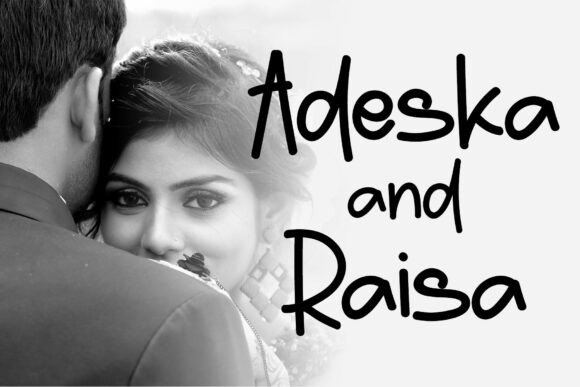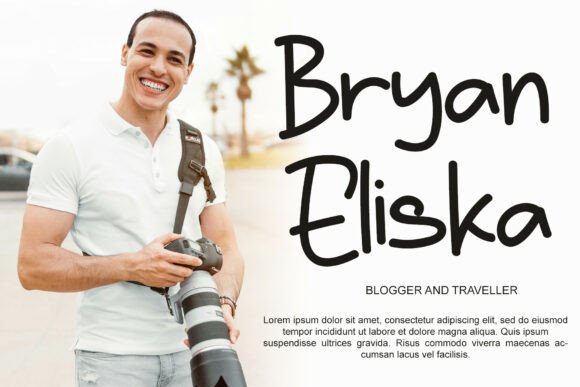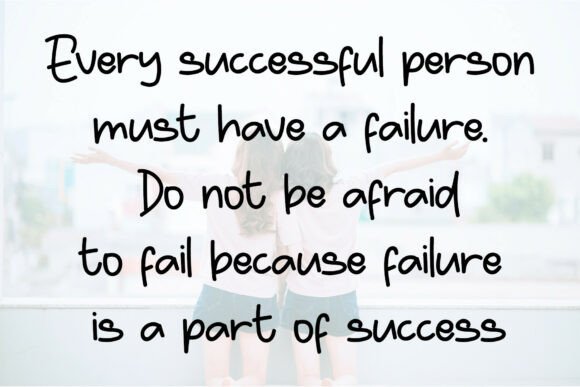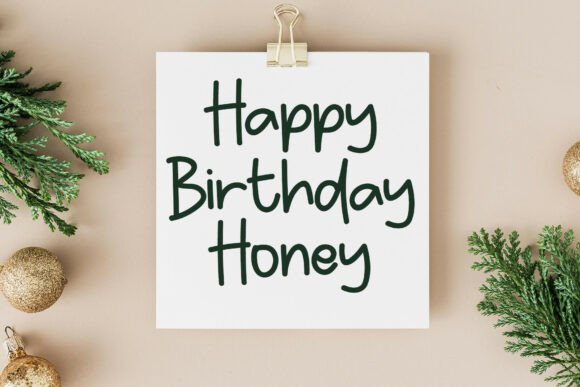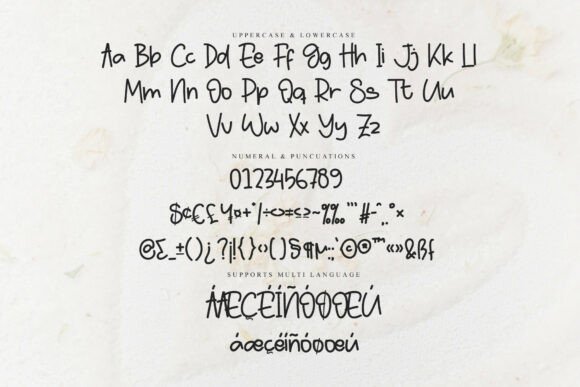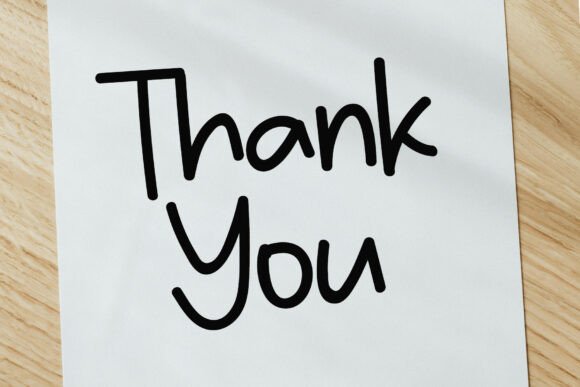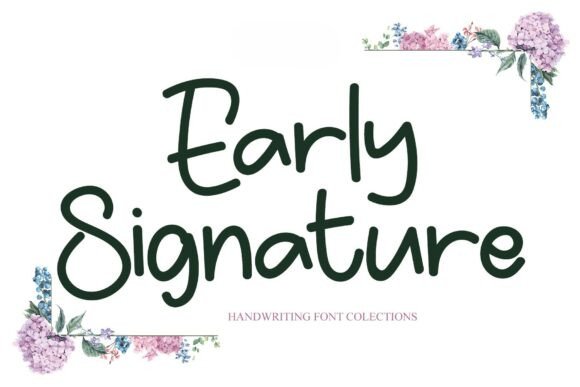
Introducing Early Signature: A Bold & Playful Modern Display Font
In the world of typography, fonts play a crucial role in conveying the tone and personality of a brand or design. For designers and crafters looking to make a statement, a font that exudes confidence, energy, and playfulness is essential. This is where Early Signature comes in – a vibrant, high-energy display font that commands attention with its quirky curves and dynamic personality.
What is Early Signature?
Early Signature is a modern display font designed to add a touch of excitement and playfulness to any design project. With its bold and contemporary vibe, this font is perfect for headlines, logos, posters, and any design that dares to stand out. Whether you’re designing a bold magazine cover, a trendy streetwear logo, or eye-catching ads, Early Signature delivers the perfect mix of playfulness and modern edge.
Key Features of Early Signature
- Bold and Playful Design: Early Signature boasts a unique and quirky design that is sure to grab attention. Its bold curves and dynamic personality make it perfect for designs that require a touch of energy and playfulness.
- Modern Display Font: This font is designed to be versatile and can be used for a wide range of design projects, from branding and social media to editorial and advertising.
- Instant Impact: With Early Signature, you can add instant impact to your designs, making them stand out from the crowd.
- Perfect for Designers and Crafters: This font is ideal for designers and crafters looking to add a touch of personality and whimsy to their designs.
Use Cases for Early Signature
Early Signature is a versatile font that can be used for a wide range of design projects. Here are some use cases where this font truly shines:
- Branding and Logos: Use Early Signature to create bold and eye-catching logos that make a statement.
- Social Media Graphics: Add a touch of playfulness and personality to your social media graphics with this modern display font.
- Editorial Design: Use Early Signature to create bold and attention-grabbing headlines and titles for magazines, newspapers, and other editorial projects.
- Advertising and Marketing: This font is perfect for creating eye-catching ads and marketing materials that require a bold and playful design.
Why Choose Early Signature?
With so many fonts available, why choose Early Signature? Here are a few reasons why this font stands out:
- Unique Design: Early Signature boasts a unique and quirky design that is sure to grab attention.
- Versatility: This font can be used for a wide range of design projects, making it a great addition to any designer’s toolkit.
- Easy to Read: Despite its bold and playful design, Early Signature is easy to read, making it perfect for use in a variety of design projects.
Early Signature is a bold and playful modern display font that is perfect for designers and crafters looking to add a touch of personality and whimsy to their designs. With its unique design, versatility, and ease of use, this font is sure to become a staple in any designer’s toolkit. Whether you’re designing a bold magazine cover, a trendy streetwear logo, or eye-catching ads, Early Signature delivers the perfect mix of playfulness and modern edge. Make a statement with this unstoppable playful display font!